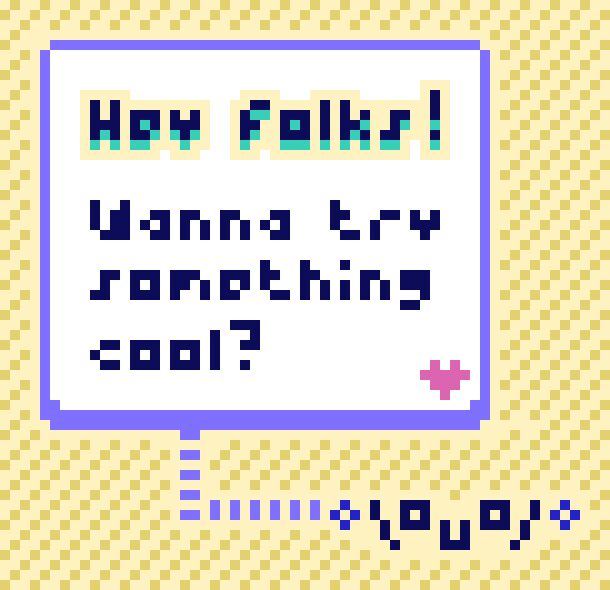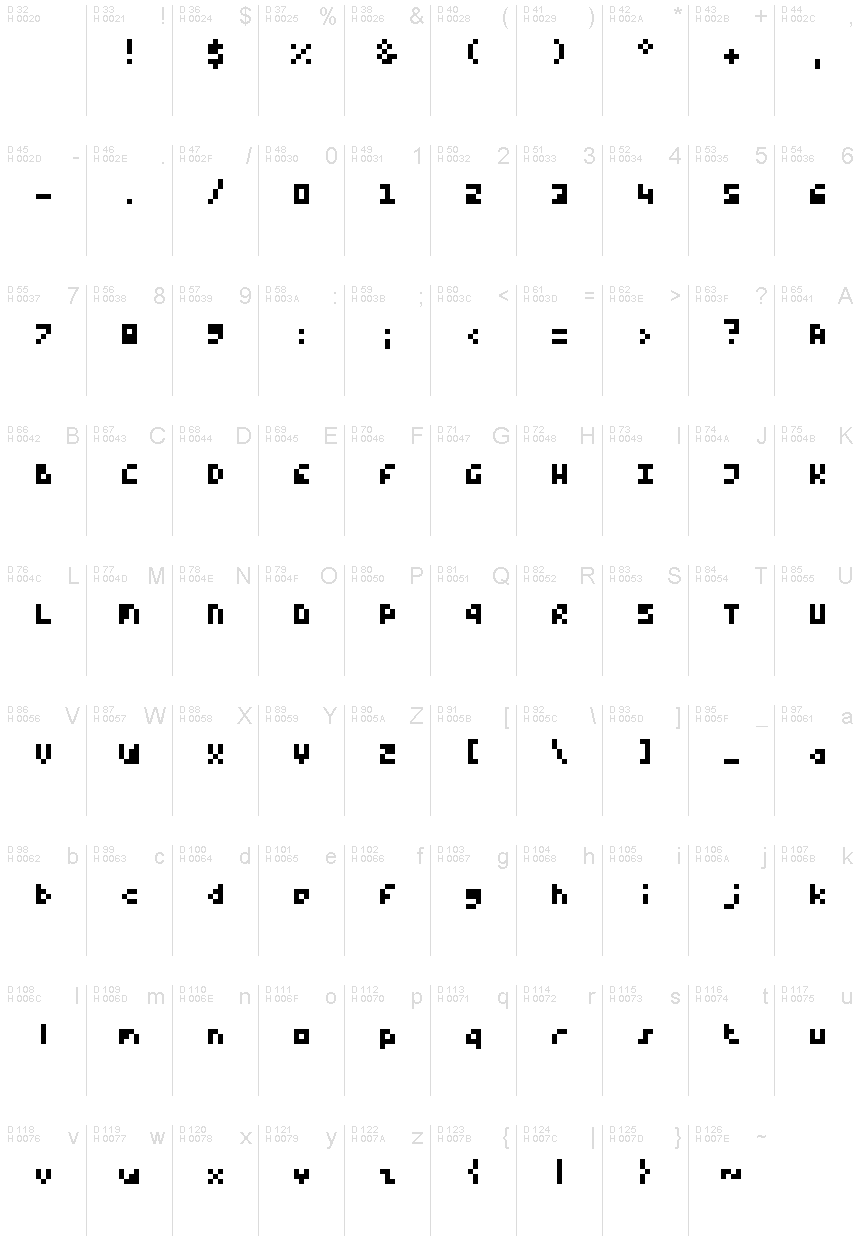
Rove's SmolPixelz Regular
Retro designs are back in style, so designers across the world are reaching out for the old school pixelated aesthetic of vintage games and graphics and incorporating them into a wide variety of projects. Smolpixelz, a pixelated font designed by Romain Magri, will add that classic charm to any project in no time.
A bitmap sans serif font characterized by its retro look and bold, expanded letters, Smolpixelz is the perfect choice for video game titles, retro-style artwork, book titles, vintage branding and logo design, vintage and contemporary posters, etc.
The smallest pixel font ever created, measuring just 4px!
This font works seamlessly at multiples of 4, including sizes such as 4, 8, 12, 16, 24, and 32.
Tiny pixel font shaped for pixel art.